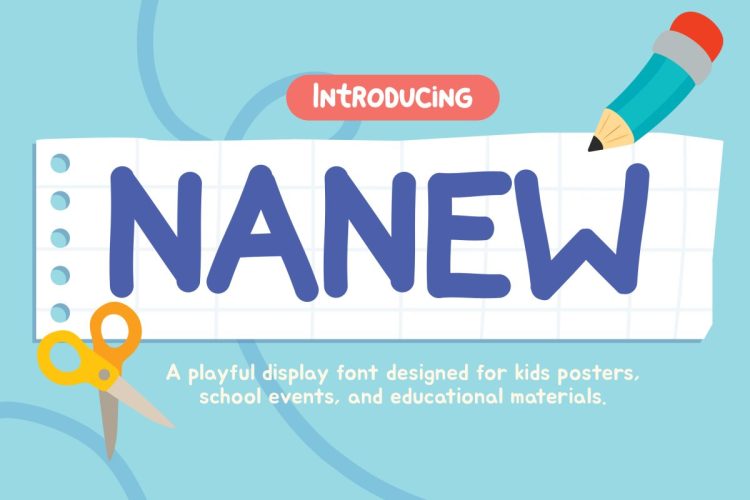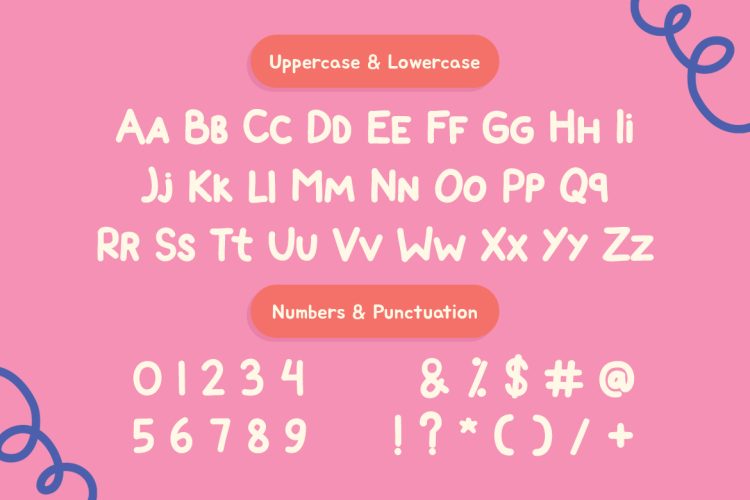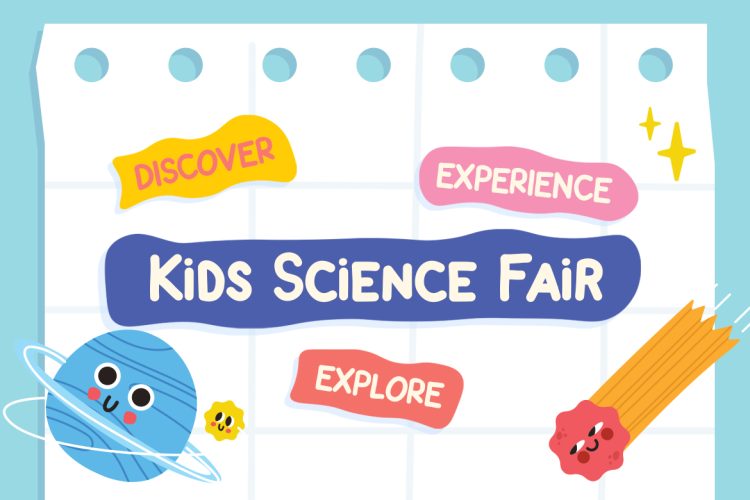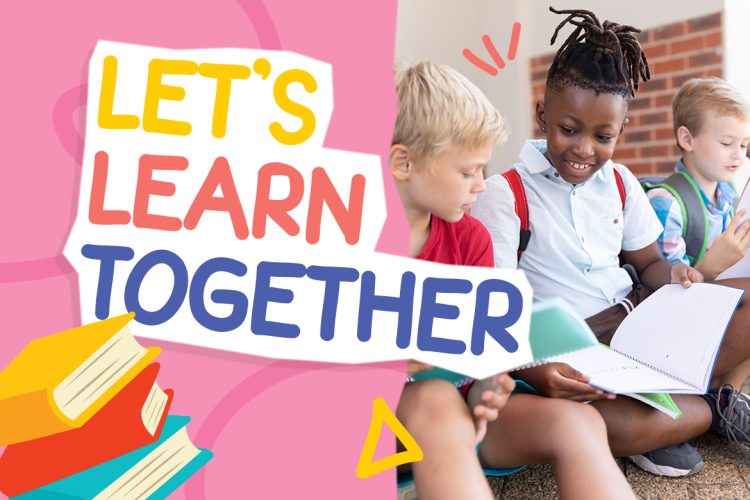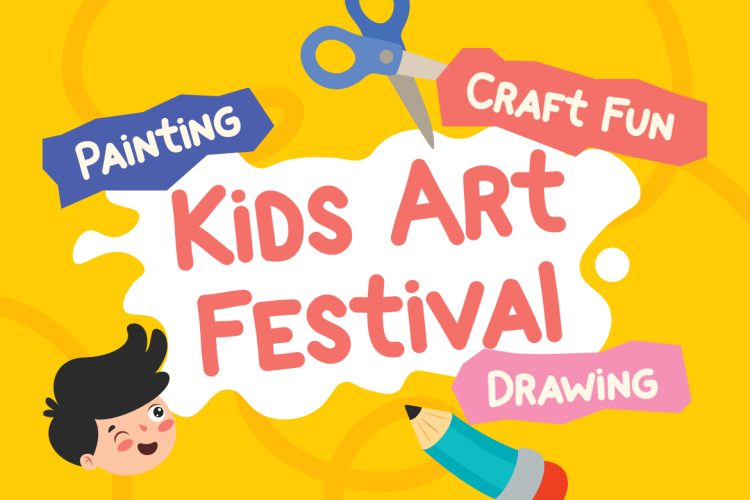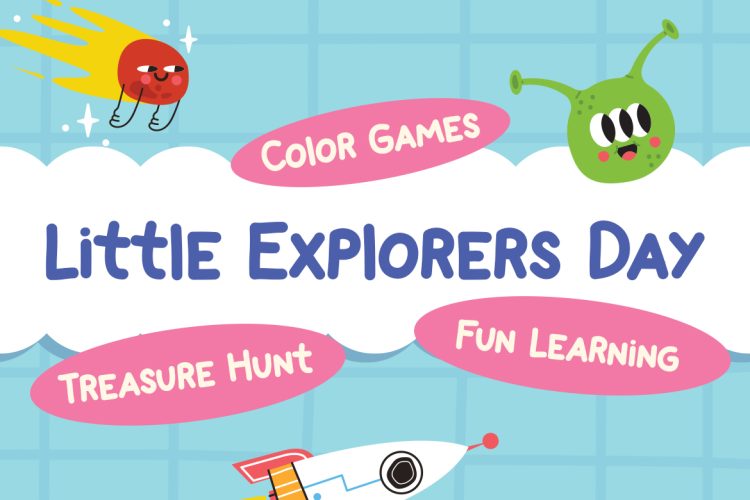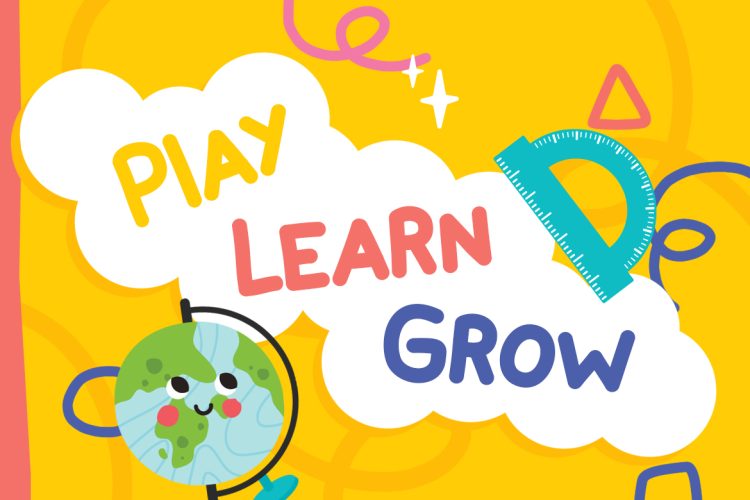
Nanew โ A Playful Kids Font Full of Energy
Kids Font Nanew is a cheerful and playful typeface created to bring joy and creativity into kids-focused designs. At first glance, its rounded shapes and hand-drawn style instantly create a friendly and welcoming feel. Moreover, the letters are designed with soft curves and lively proportions, which make every word look fun and expressive. Because of this playful aesthetic, the font easily captures the spirit of classrooms, learning activities, and childrenโs creativity. In addition, the balanced structure keeps the text clear and readable. As a result, Nanew not only looks adorable but also works beautifully for designs that need to feel engaging, colorful, and full of personality.
Kids Font Nanew is a delightful display font built for projects that celebrate imagination and fun. Not only does it feature smooth and rounded letterforms, but it also pairs perfectly with bright colors, illustrations, and educational themes. Furthermore, its playful rhythm helps text feel more energetic and approachable. Therefore, whether you are creating digital graphics or printed materials, Nanew adds a lively and friendly touch. Ultimately, it helps transform simple text into eye-catching visuals that children and parents will both enjoy.
Because of its cheerful and readable style, Kids Font Nanew works wonderfully for many creative projects, such as:
Childrenโs books and storytelling visuals
Educational posters and classroom worksheets
Kids events like science fairs, art festivals, and workshops
Toy packaging and kids product branding
Learning apps, games, and YouTube thumbnails
Kindergarten, preschool, and daycare promotions